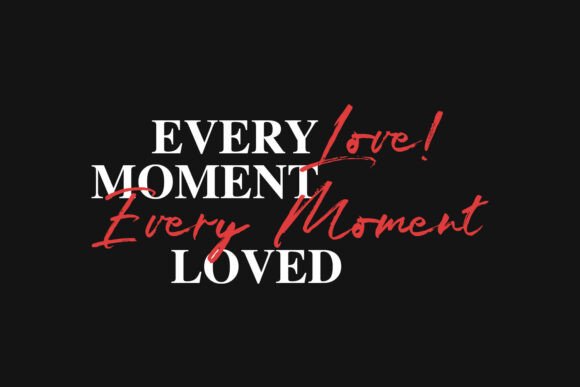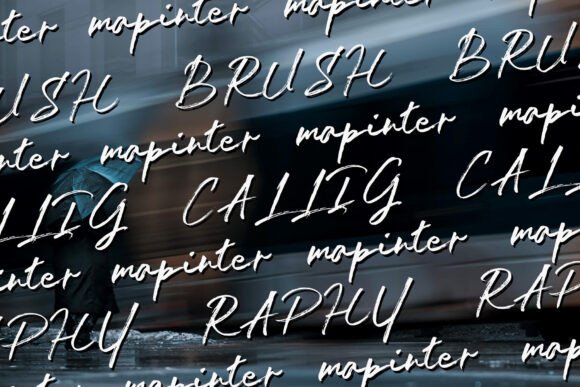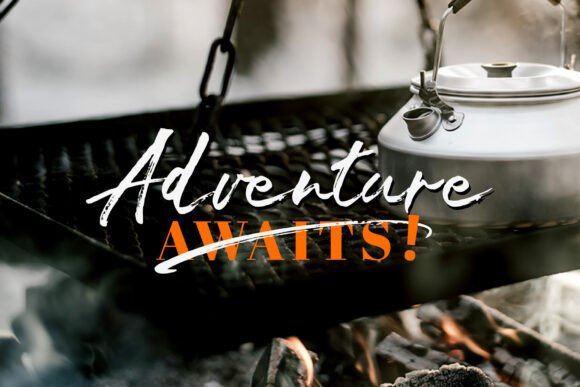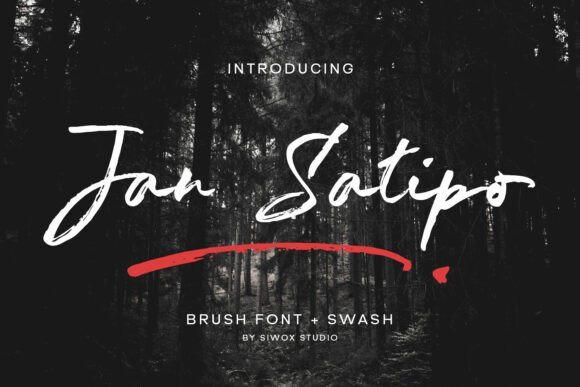
Introduction to Jan Satipo Brush Font
Revitalize your next design project with the spectacular charm of the β€œJan Satipo Brush Font”.
This organic and vivacious font is designed to breathe an element of nature’s aesthetic into your creative pursuits An ideal choice for embellishing taglines, titles, book covers, and logos, Jan Satipo Brush Font can also sprinkle its magic on your quotidian quotes, invitations, and posters.
Key Features of Jan Satipo Brush Font
Why Choose Jan Satipo Brush Font?
Jan Satipo Brush Font offers exceptional quality and versatility, making it a valuable addition to your design toolkit. Whether you’re creating for personal projects or commercial use, Jan Satipo Brush Font delivers professional results.